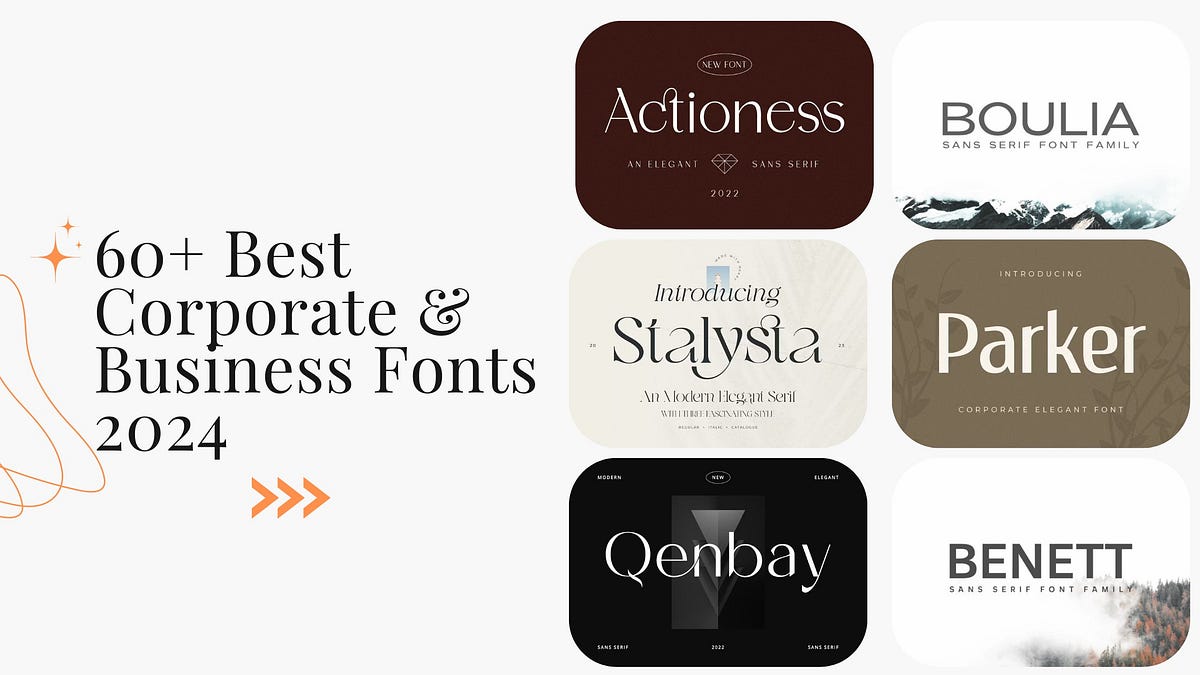
What Are Business Fonts . Web take your business to the next level with our selection of free business fonts! It's your brand's secret sauce in grabbing attention and making a lasting impression.
Web here go a few dozen professional fonts: Perfect for any situation, each font packs a huge punch. Web if you’re on the lookout for the best business fonts, then we’ve got you covered!
Web take your business to the next level with our selection of free business fonts! It's your brand's secret sauce in grabbing attention and making a lasting impression. Web here go a few dozen professional fonts: Whether you're opening a cool café.
What Are Business Fonts - Web if you’re on the lookout for the best business fonts, then we’ve got you covered! It's your brand's secret sauce in grabbing attention and making a lasting impression. Whether you're opening a cool café. Web take your business to the next level with our selection of free business fonts! Web if you’re looking for the perfect font for a.
What Are Business Fonts - Web take your business to the next level with our selection of free business fonts! Web the right font isn't just a detail; Serif and sans serif (including the trendy condensed style) that look minimal, clean, and modern. Web if you’re on the lookout for the best business fonts, then we’ve got you covered! Web if you’re looking for the.
What Are Business Fonts - There are multiple reasons to use the best business fonts, with the first. It's your brand's secret sauce in grabbing attention and making a lasting impression. Web the right font isn't just a detail; Serif and sans serif (including the trendy condensed style) that look minimal, clean, and modern. Web take your business to the next level with our selection.
What Are Business Fonts - Web here go a few dozen professional fonts: Web take your business to the next level with our selection of free business fonts! Perfect for any situation, each font packs a huge punch. Web if you’re looking for the perfect font for a logo, business card, stationery, or. It's your brand's secret sauce in grabbing attention and making a lasting.
What Are Business Fonts - Whether you're opening a cool café. Web take your business to the next level with our selection of free business fonts! Serif and sans serif (including the trendy condensed style) that look minimal, clean, and modern. It's your brand's secret sauce in grabbing attention and making a lasting impression. Web if you’re on the lookout for the best business fonts,.
What Are Business Fonts - It's your brand's secret sauce in grabbing attention and making a lasting impression. Web if you’re looking for the perfect font for a logo, business card, stationery, or. Serif and sans serif (including the trendy condensed style) that look minimal, clean, and modern. Web the right font isn't just a detail; Perfect for any situation, each font packs a huge.
What Are Business Fonts - Web if you’re on the lookout for the best business fonts, then we’ve got you covered! Perfect for any situation, each font packs a huge punch. Web if you’re looking for the perfect font for a logo, business card, stationery, or. Whether you're opening a cool café. Web here go a few dozen professional fonts:
What Are Business Fonts - Serif and sans serif (including the trendy condensed style) that look minimal, clean, and modern. Web if you’re on the lookout for the best business fonts, then we’ve got you covered! Web if you’re looking for the perfect font for a logo, business card, stationery, or. Web the right font isn't just a detail; There are multiple reasons to use.
What Are Business Fonts - Whether you're opening a cool café. Web if you’re on the lookout for the best business fonts, then we’ve got you covered! Web here go a few dozen professional fonts: It's your brand's secret sauce in grabbing attention and making a lasting impression. Serif and sans serif (including the trendy condensed style) that look minimal, clean, and modern.
What Are Business Fonts - It's your brand's secret sauce in grabbing attention and making a lasting impression. Serif and sans serif (including the trendy condensed style) that look minimal, clean, and modern. Web take your business to the next level with our selection of free business fonts! Web if you’re on the lookout for the best business fonts, then we’ve got you covered! Web.
What Are Business Fonts - Web take your business to the next level with our selection of free business fonts! Web if you’re looking for the perfect font for a logo, business card, stationery, or. Whether you're opening a cool café. Web here go a few dozen professional fonts: Web if you’re on the lookout for the best business fonts, then we’ve got you covered!
What Are Business Fonts - There are multiple reasons to use the best business fonts, with the first. Serif and sans serif (including the trendy condensed style) that look minimal, clean, and modern. Web if you’re looking for the perfect font for a logo, business card, stationery, or. Whether you're opening a cool café. Web here go a few dozen professional fonts: